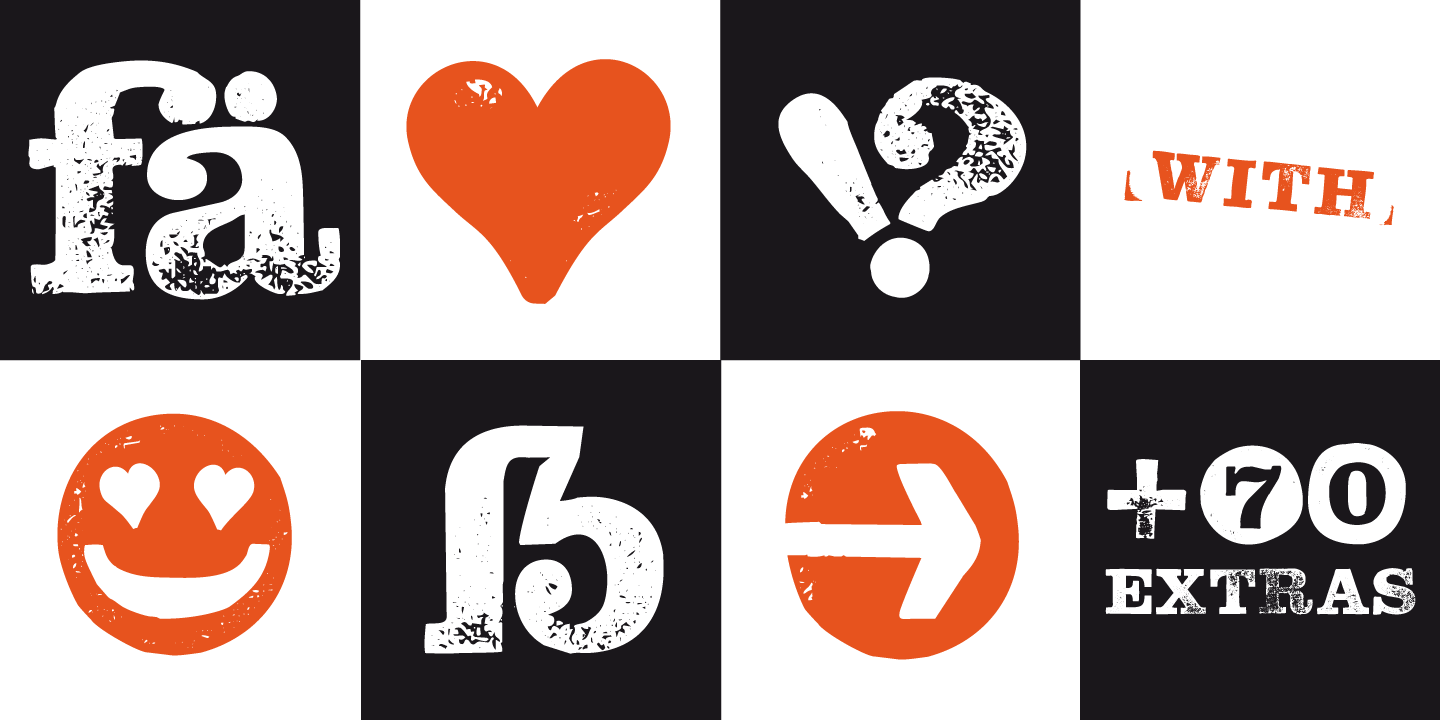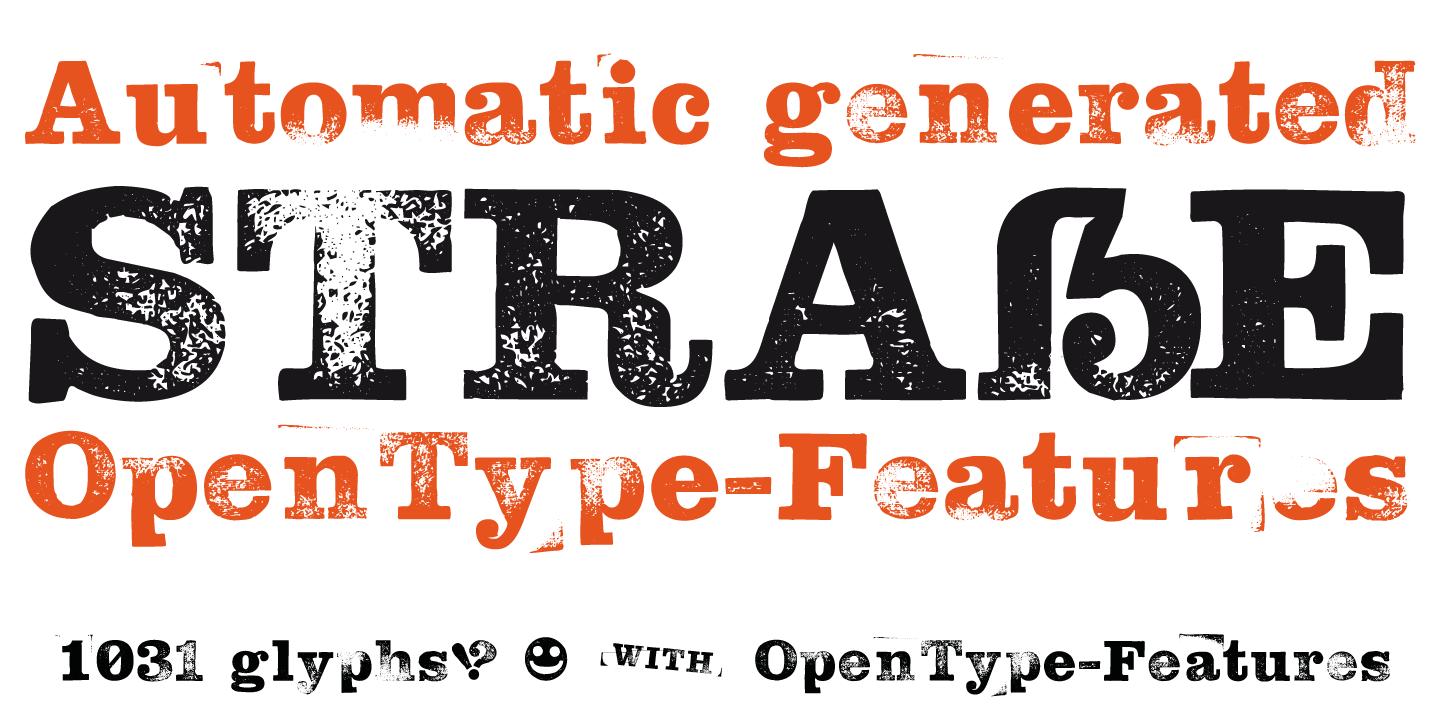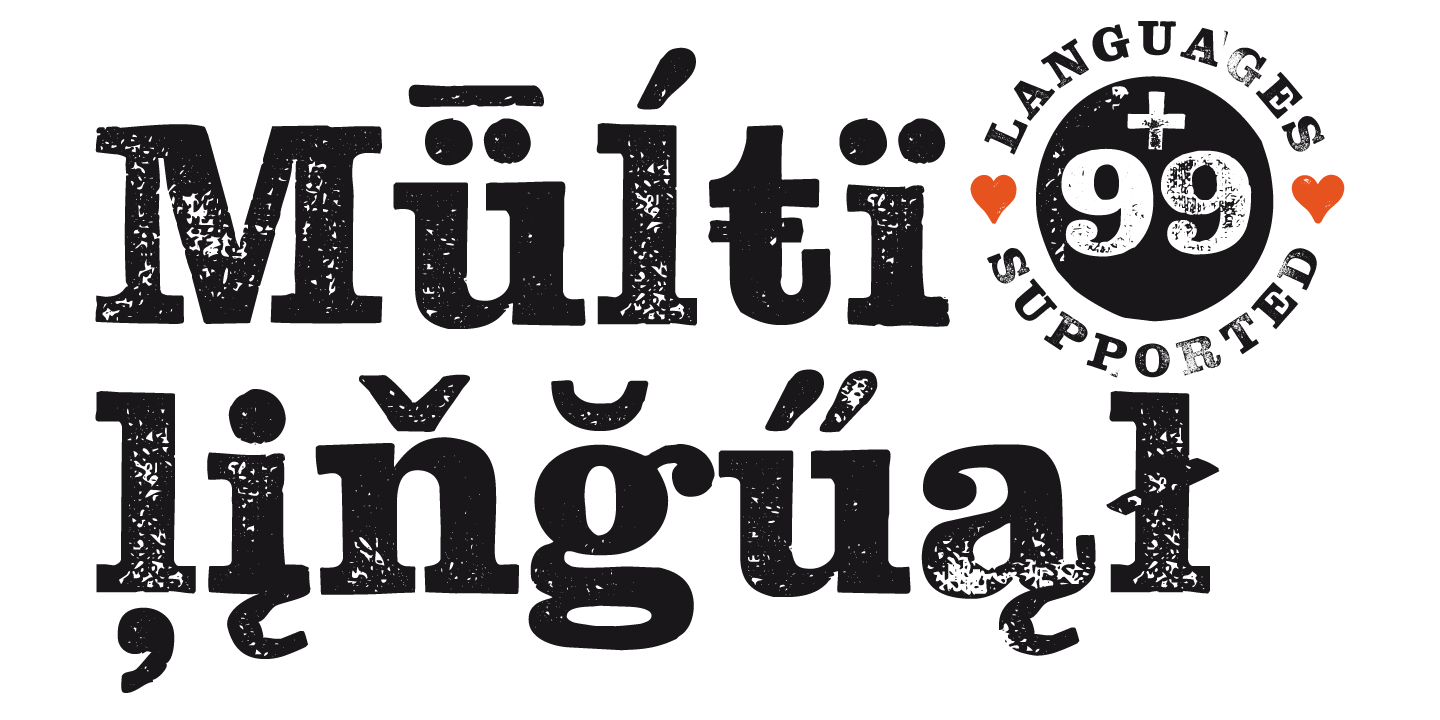
Hand Stamp Slab Serif Rough Regular Font
Hand Stamp Slab Serif Rough Regular Font is a cool and adaptable display font. This font is suitable for designs such as t-shirts, sportswear, posters, logos, advertisements, clothing, and more.
Hand Stamp Slab Serif Rough Regular Font is a cool and adaptable display font. This font is suitable for designs such as t-shirts, sportswear, posters, logos, advertisements, clothing, and more. Whatever the topic, this font will be a great asset to your font collection, as it has the potential to enhance any creation.